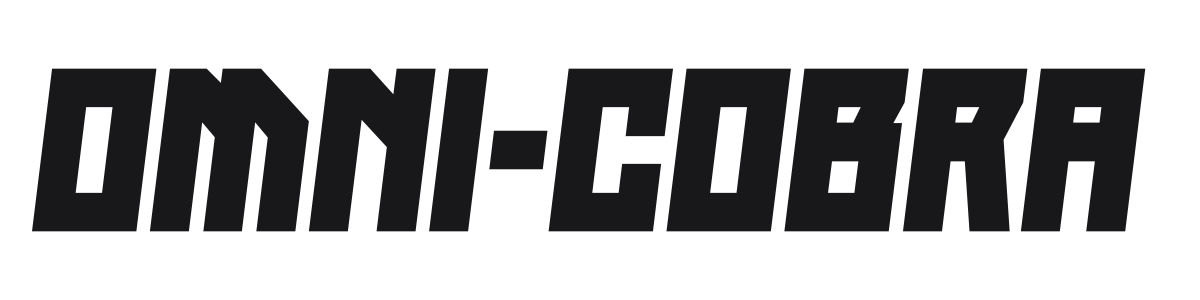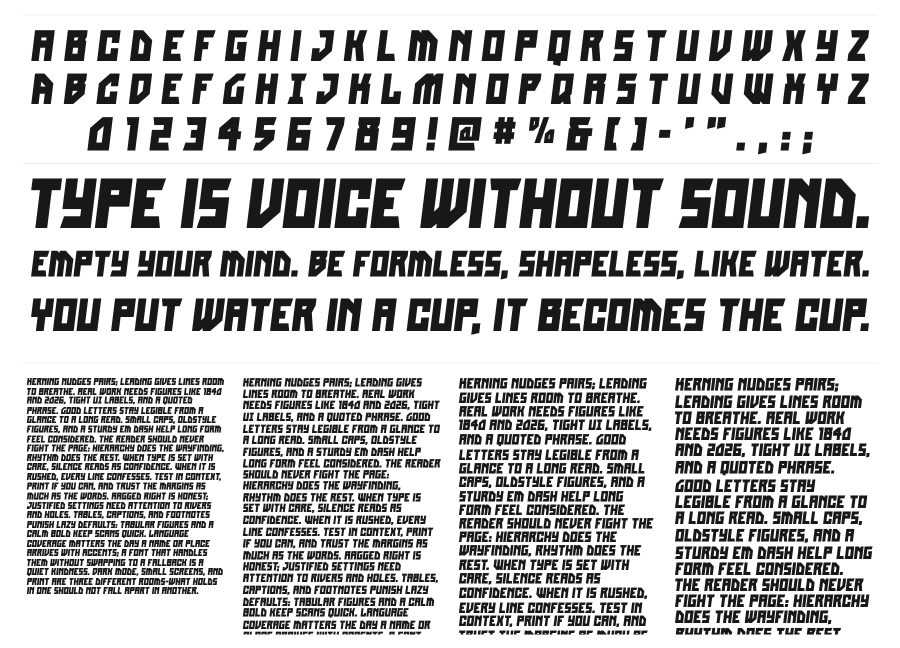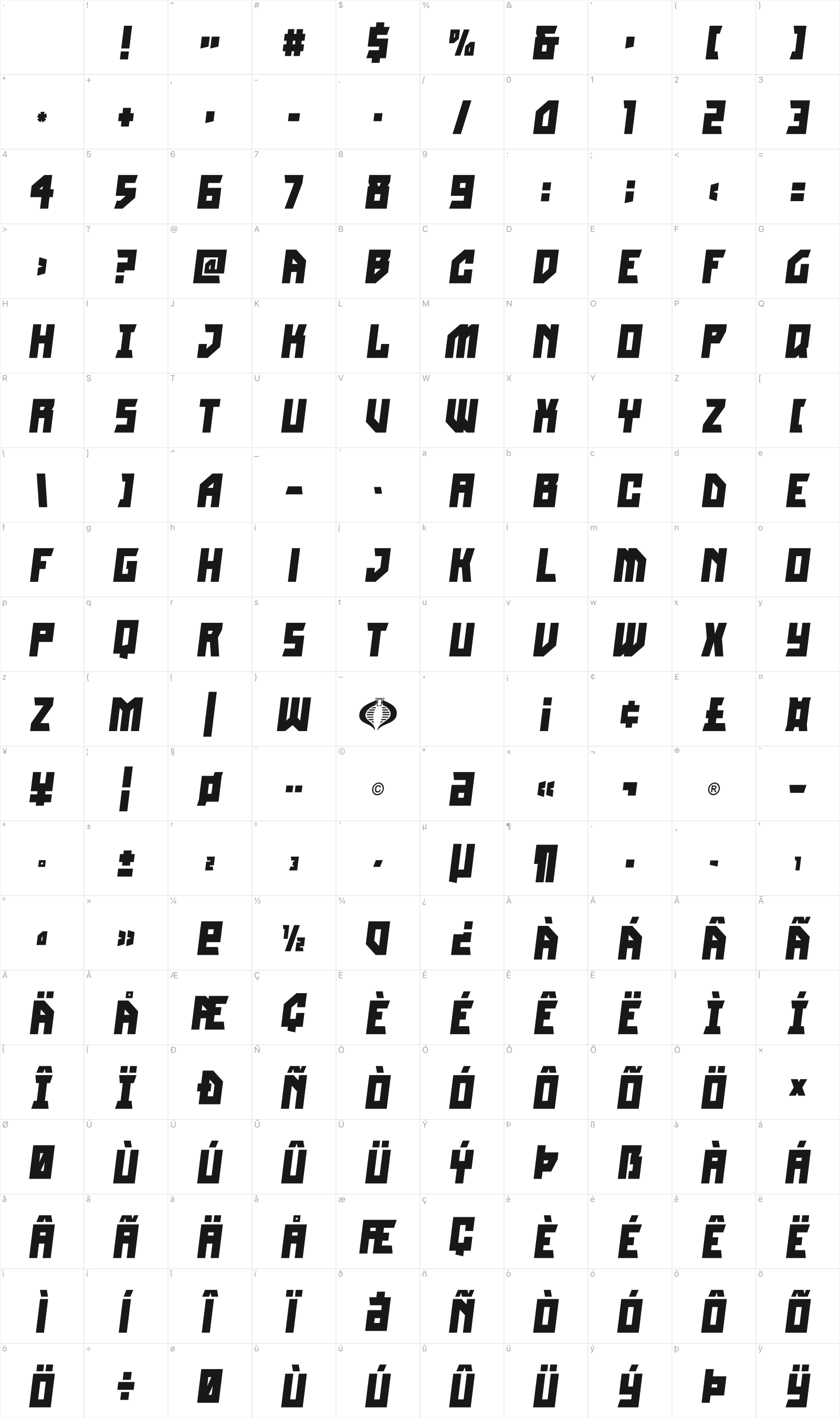
Omni-cobra
Omni-cobra is a heavy oblique display font with angular, machine-cut geometry and a relentless forward lean. The bold condensed forms are built from sharp corners and flat terminals, landing somewhere between military stencil and sci-fi blockbuster. It comes in 25 variants including 3D, gradient, halftone, and laser versions.